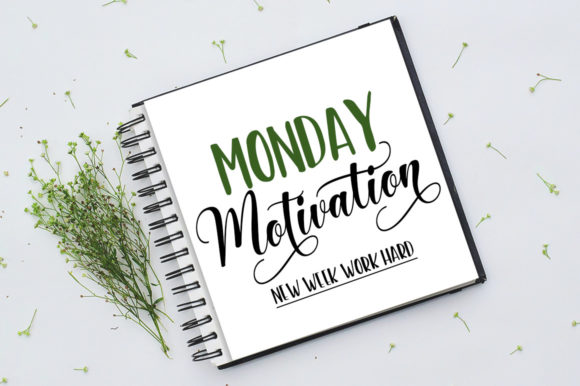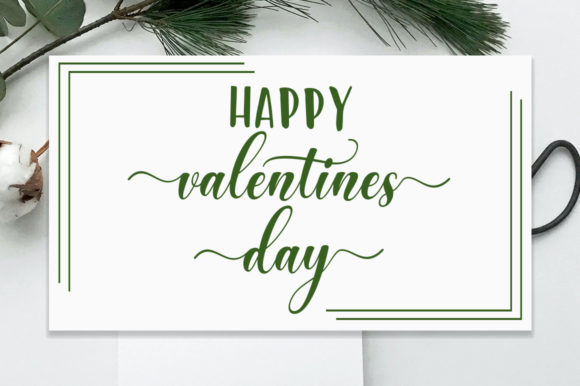
Bestina Font
db-ku.com - Script & Handwritten -- Bestina is a cute, elegant and unique handwritten font. Expertly designed to be a true favourite, this font has the potential to take your creative ideas to the highest level!